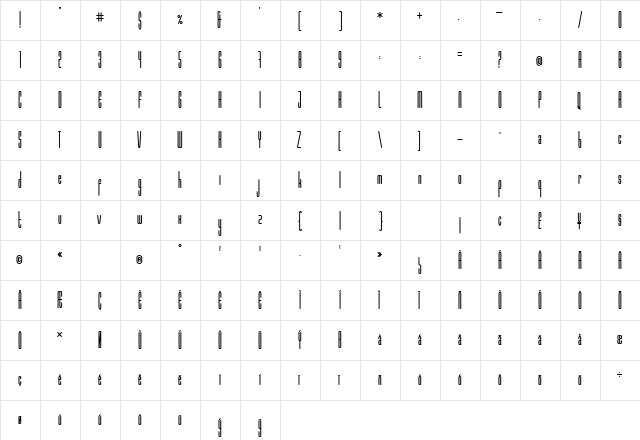
Marbellya Cond Bold
Design Context for Marbellya Cond Typeface
Marbellya Cond takes a measured approach to typography — its balanced proportions and neutral character make it a reliable workhorse for both digital and print work. The heavy weight commands attention and anchors typographic hierarchies. The condensed width makes it efficient for tight spaces without sacrificing legibility.